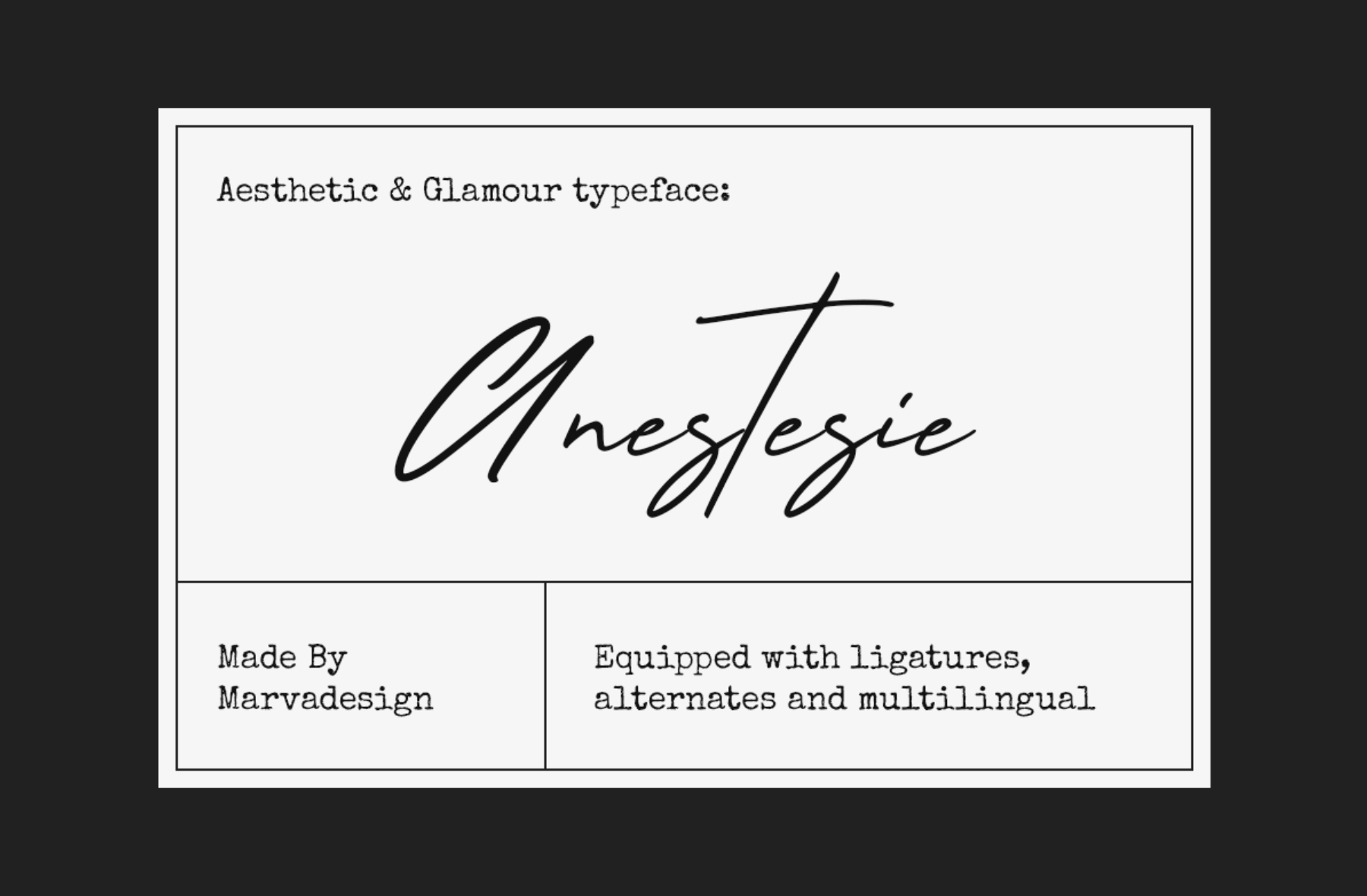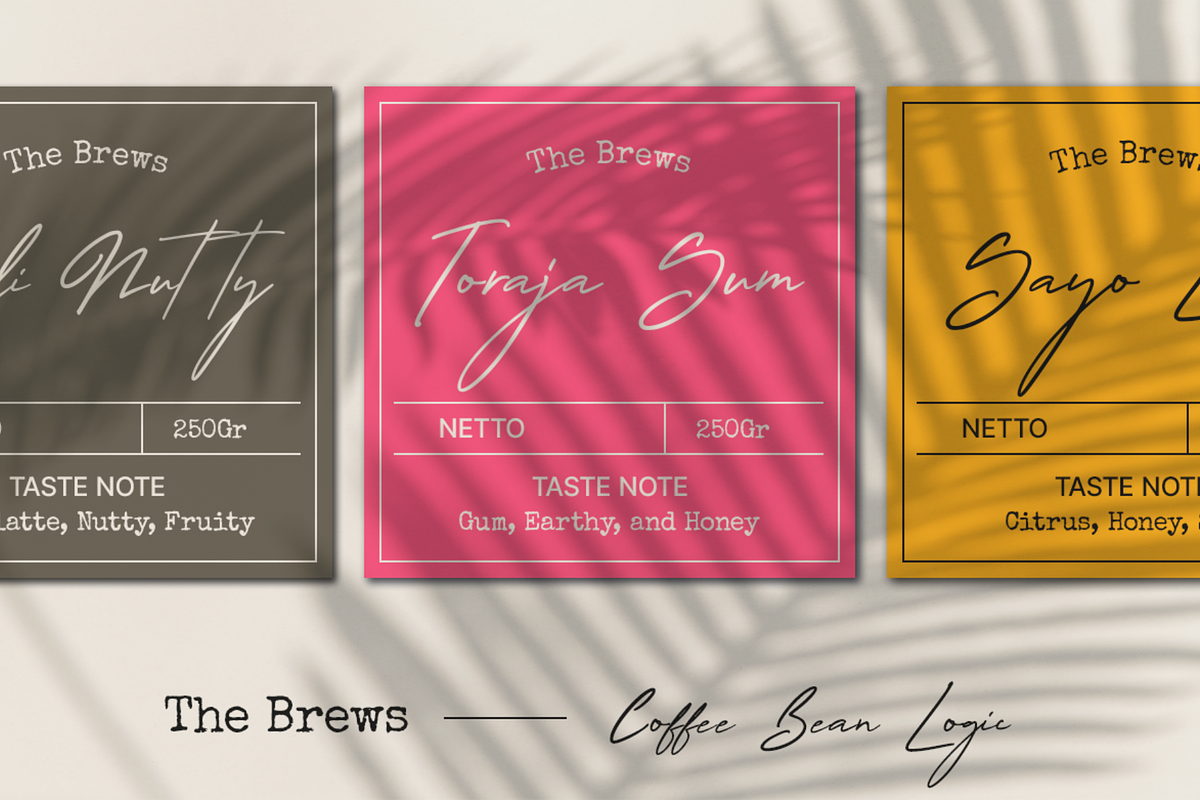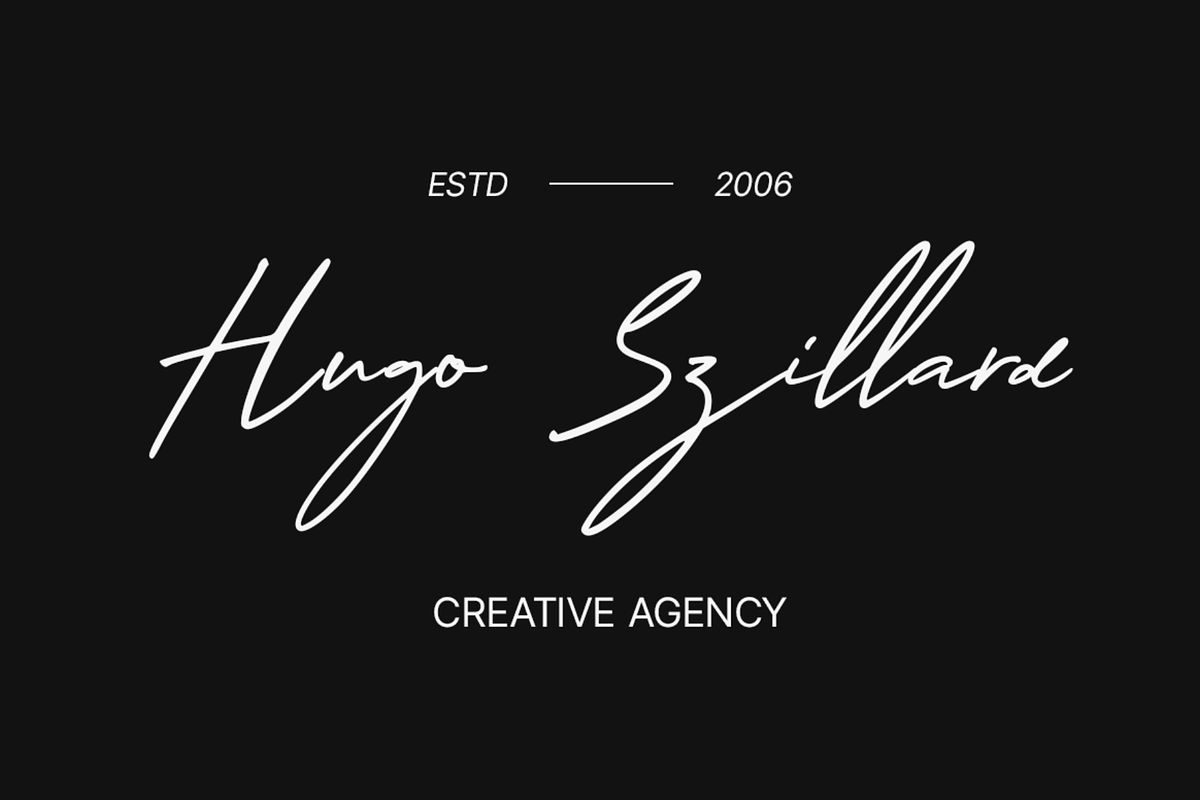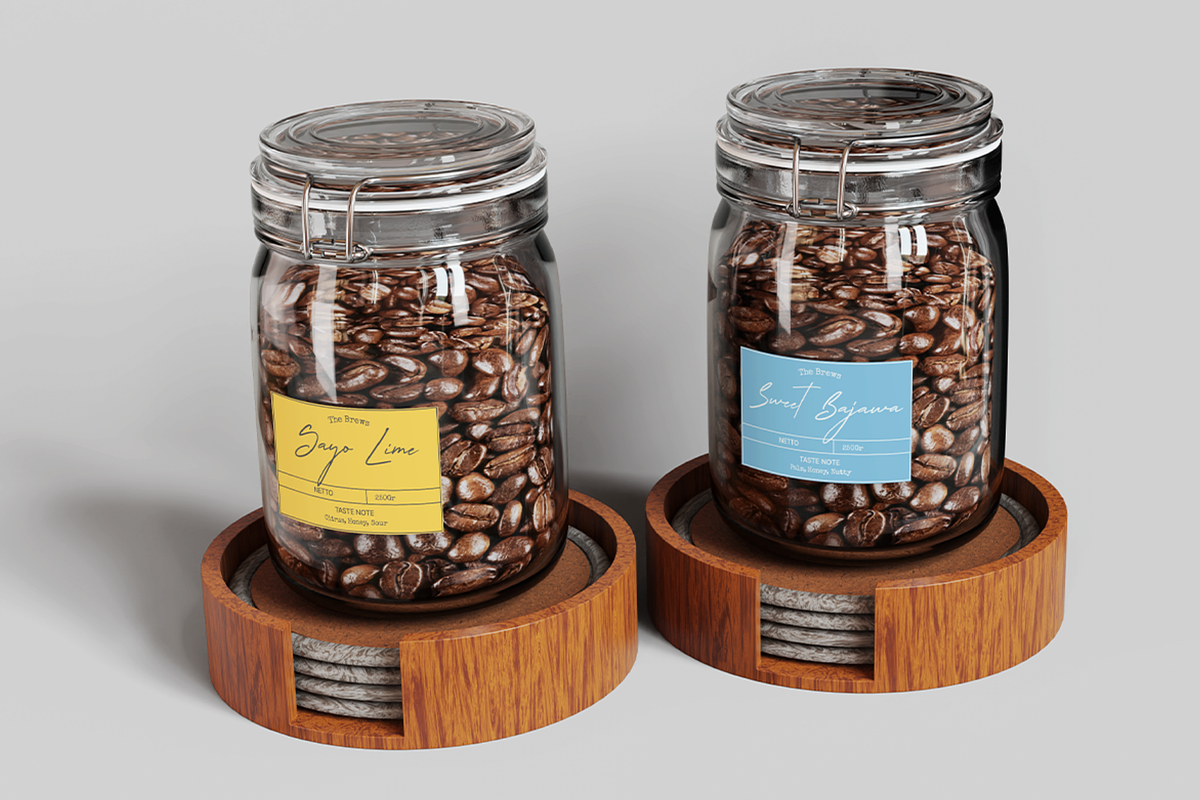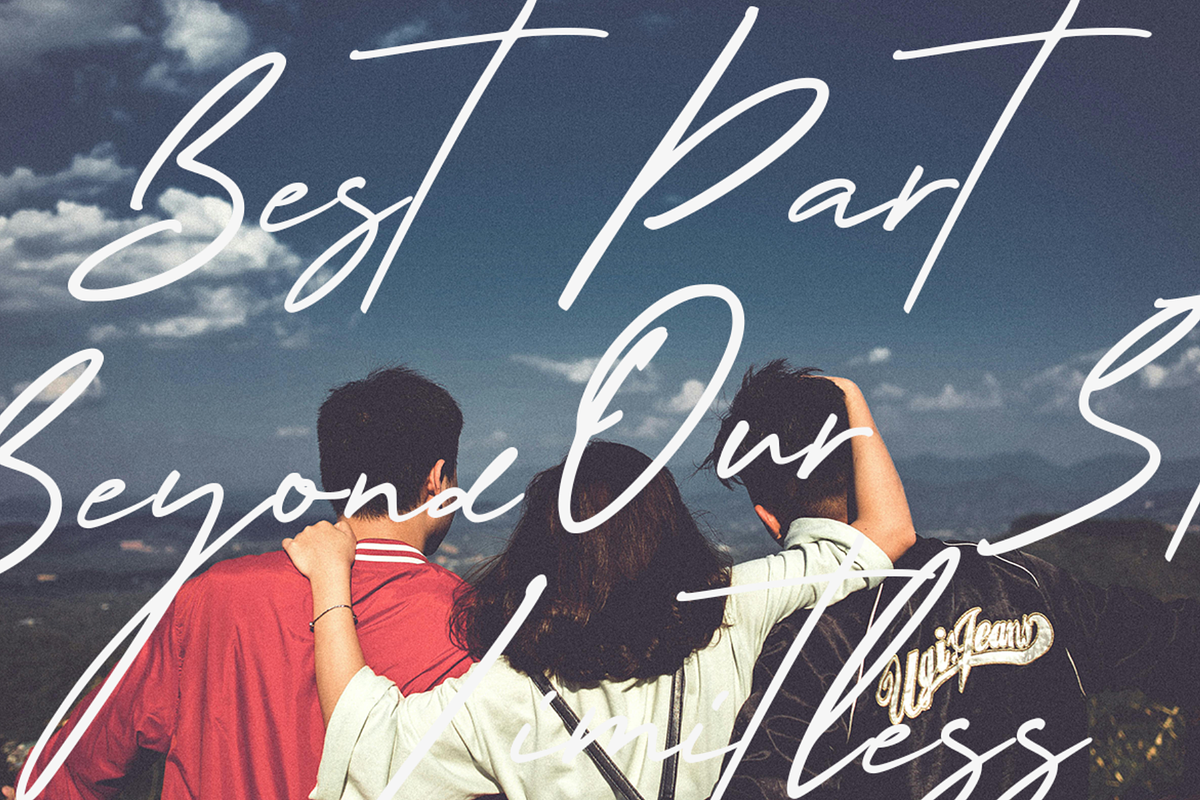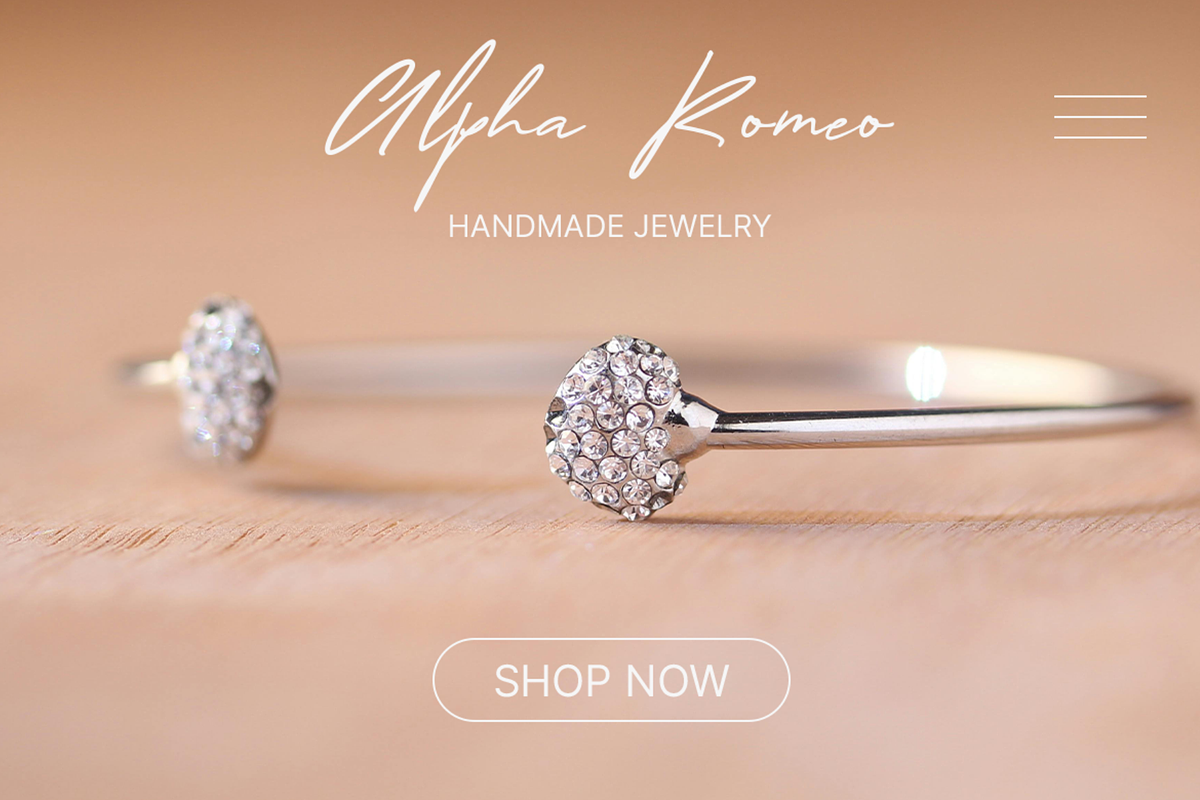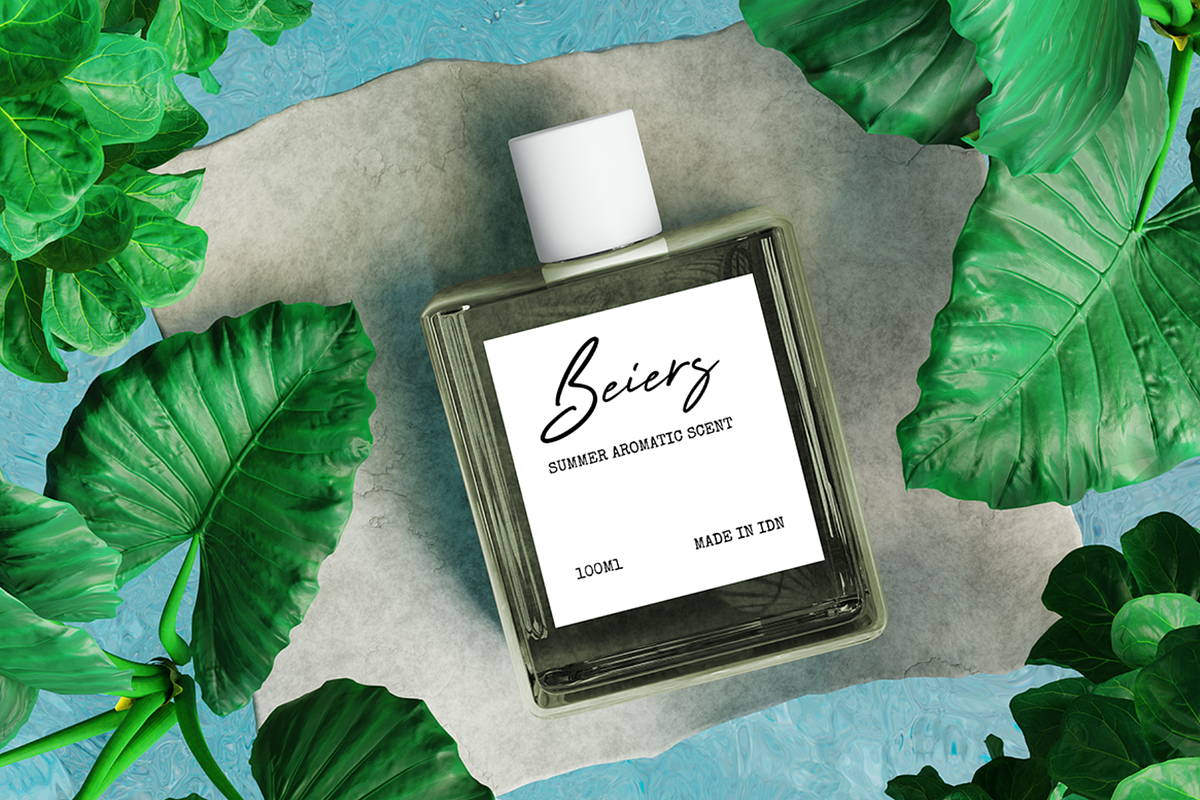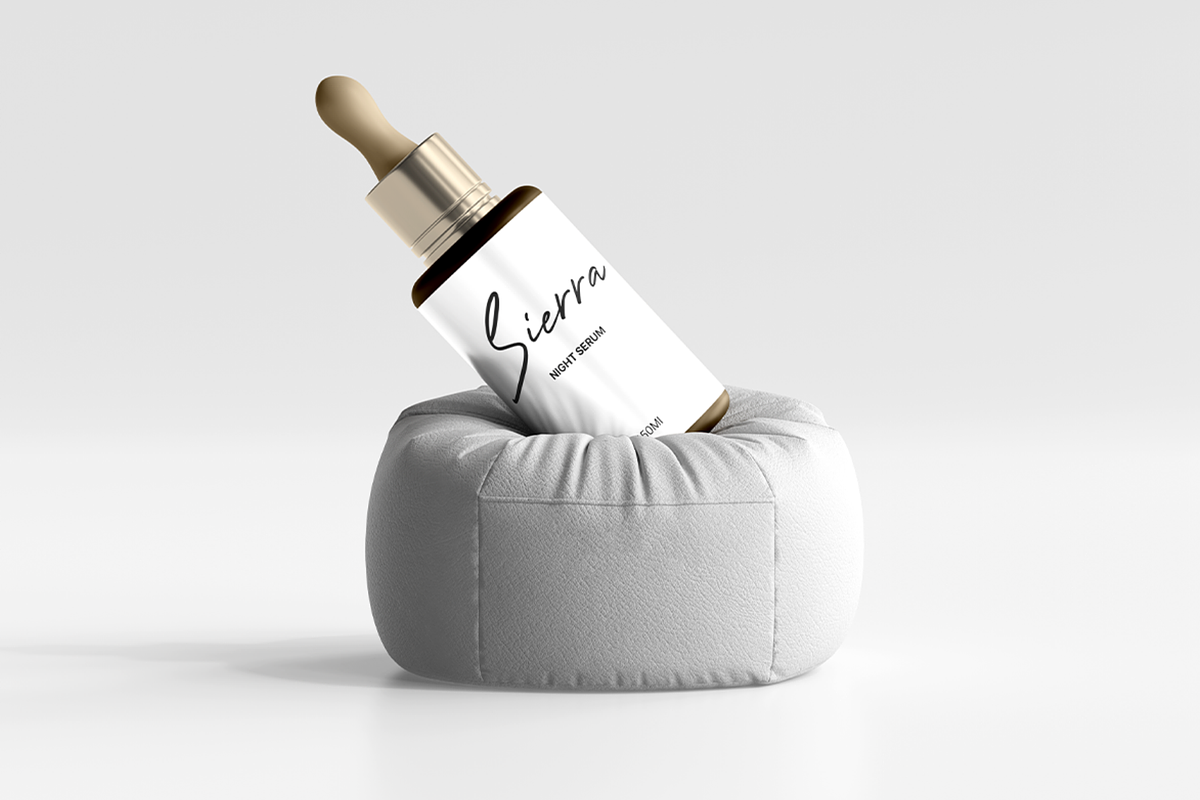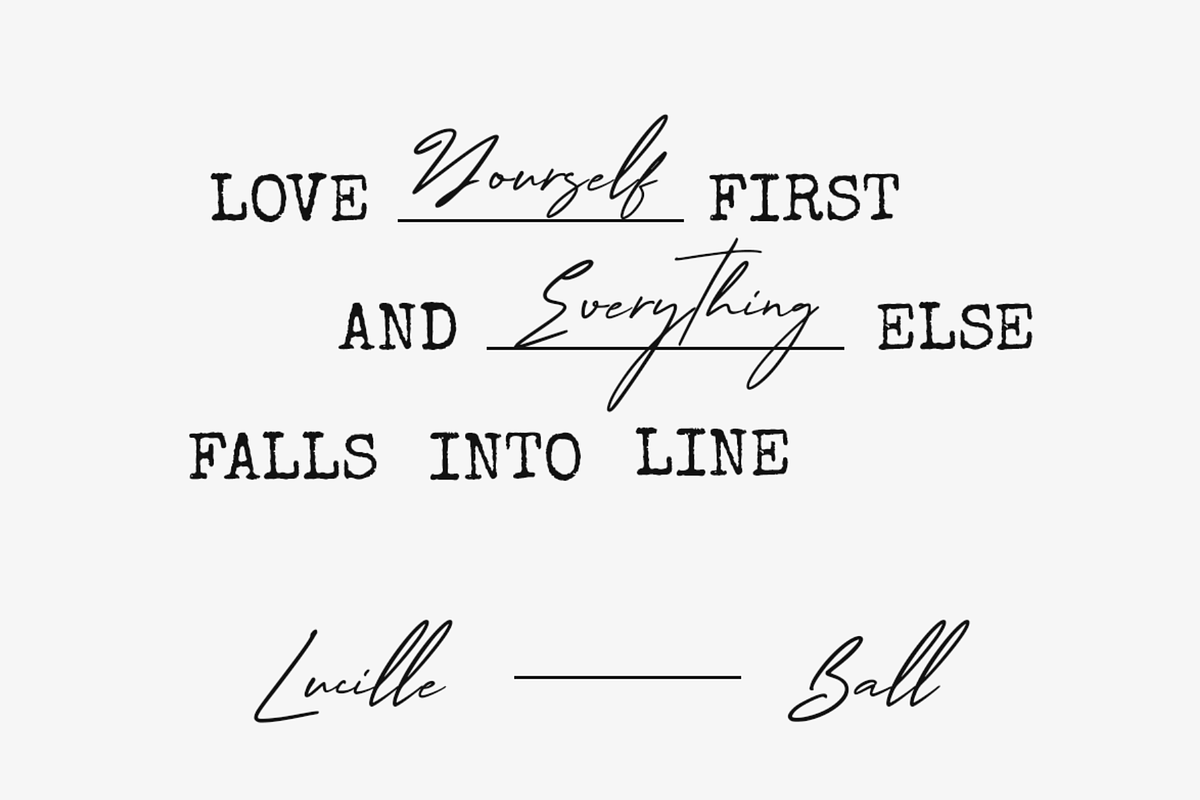
Anestesie - Script Typeface
Introducing New Brand Typeface Anestesie is a sophisticated and elegant handwritten script typeface that exudes luxury and refinement. Its smooth, flowing strokes create a natural yet polished look, making it perfect for high-end branding, product packaging, and creative designs. With built-in ligatures and alternates, this font allows for customization, giving each design a unique and organic feel. Additionally, its multilingual support ensures accessibility across various languages, making it a versatile choice for both local and international projects. Whether used for logos, invitations, social media content, or boutique packaging, Anestesie adds a touch of glamour and professionalism to any design.